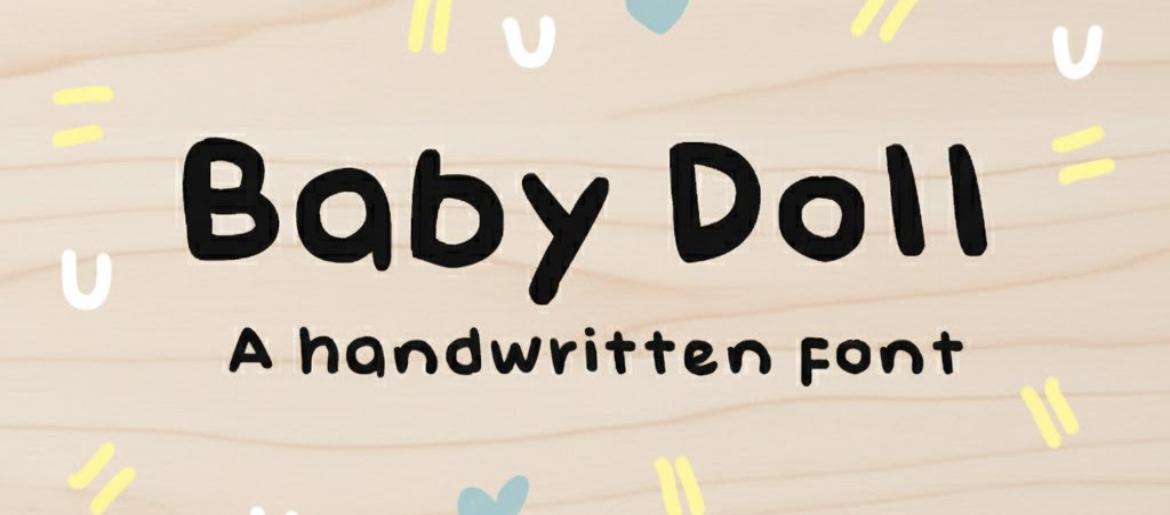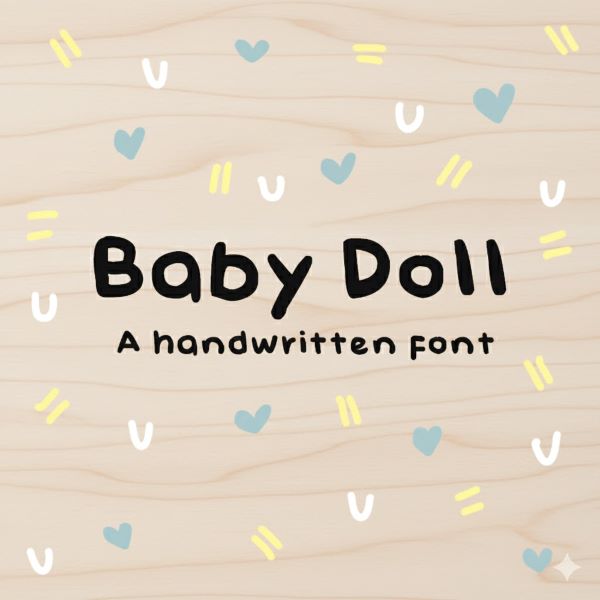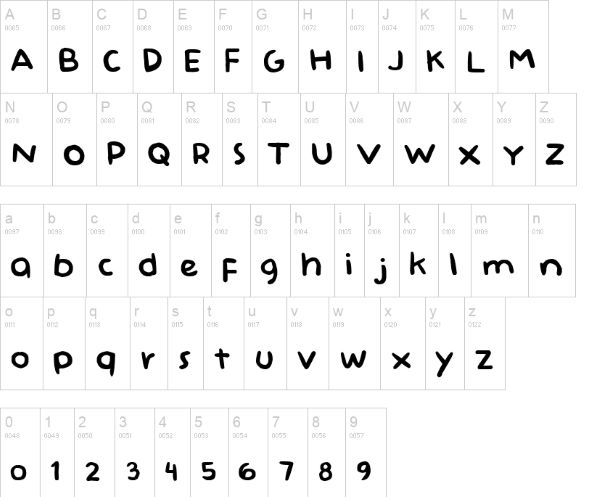
Baby Doll Font
Baby Doll Font is a cute handwritten typeface with soft strokes and a sweet, playful personality. Its gentle curves and childlike charm make it perfect for baby products, invitations, greeting cards, quotes, and cheerful branding. Baby Doll adds warmth, innocence, and a cozy handwritten feel to any design.